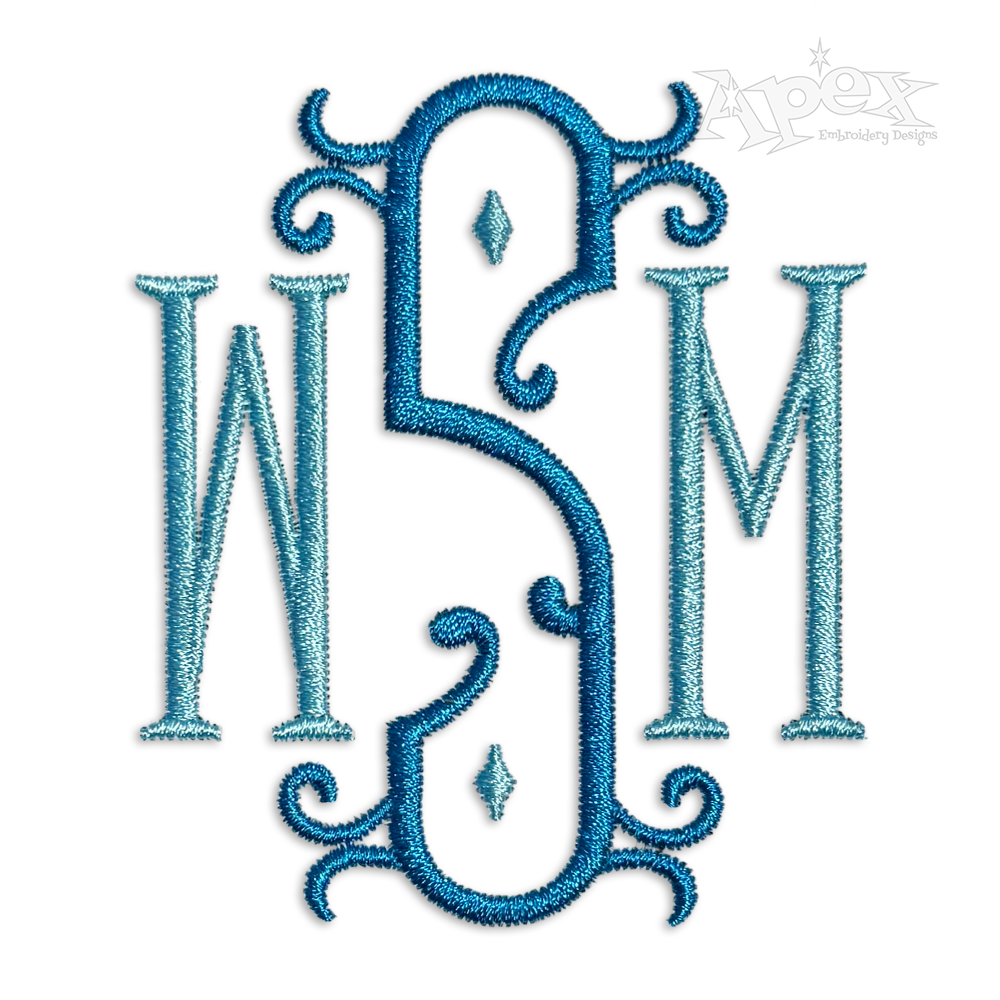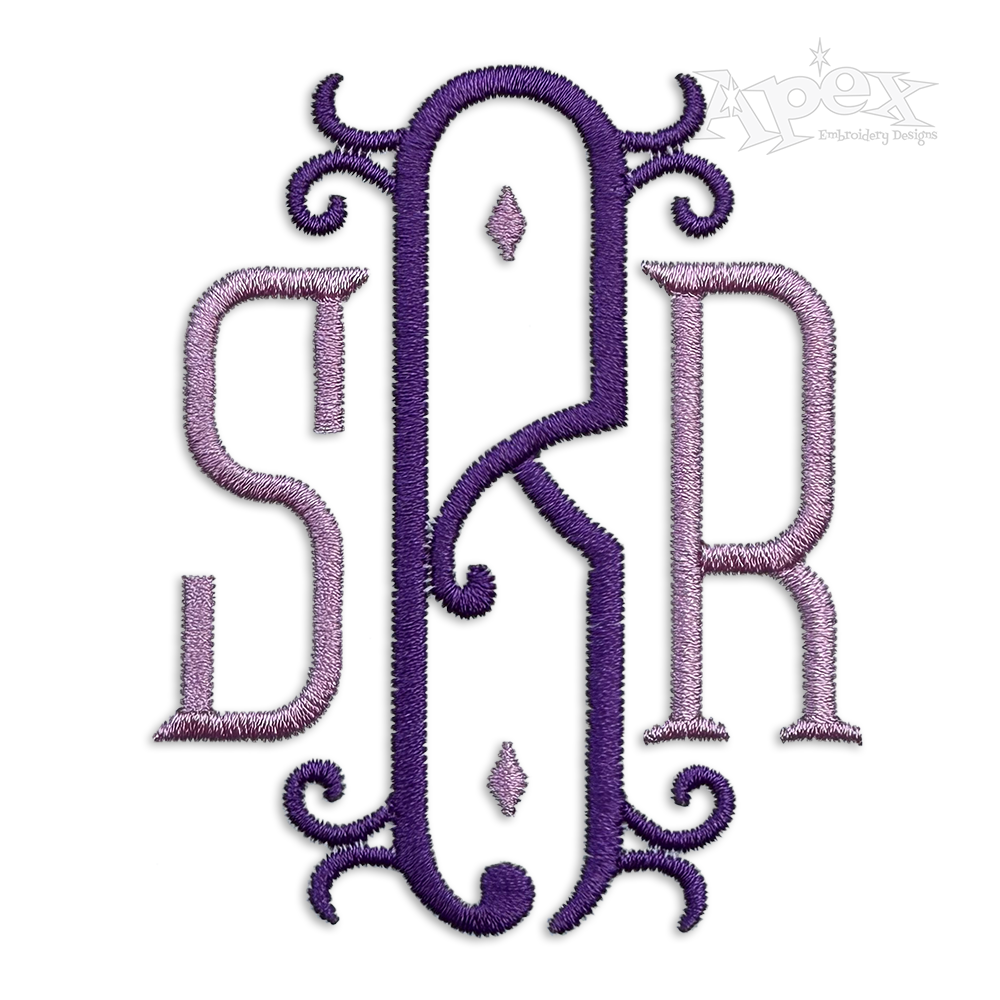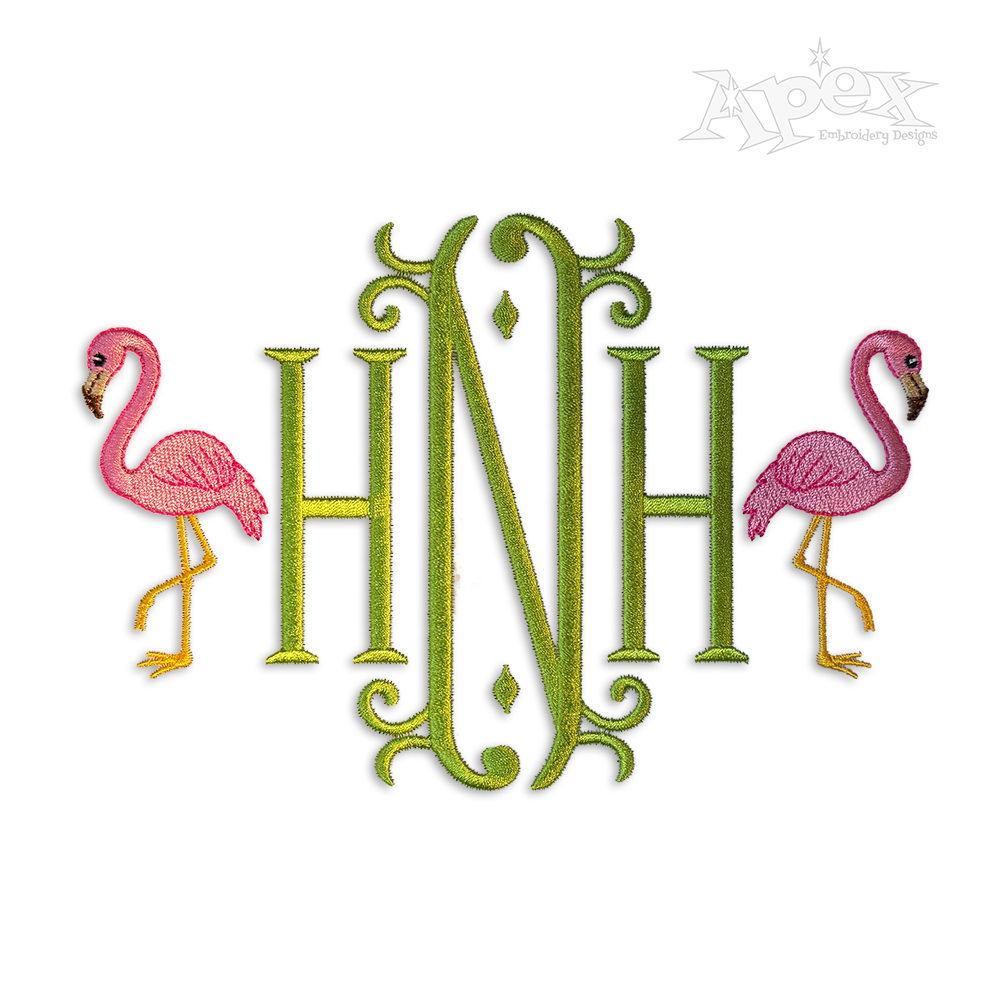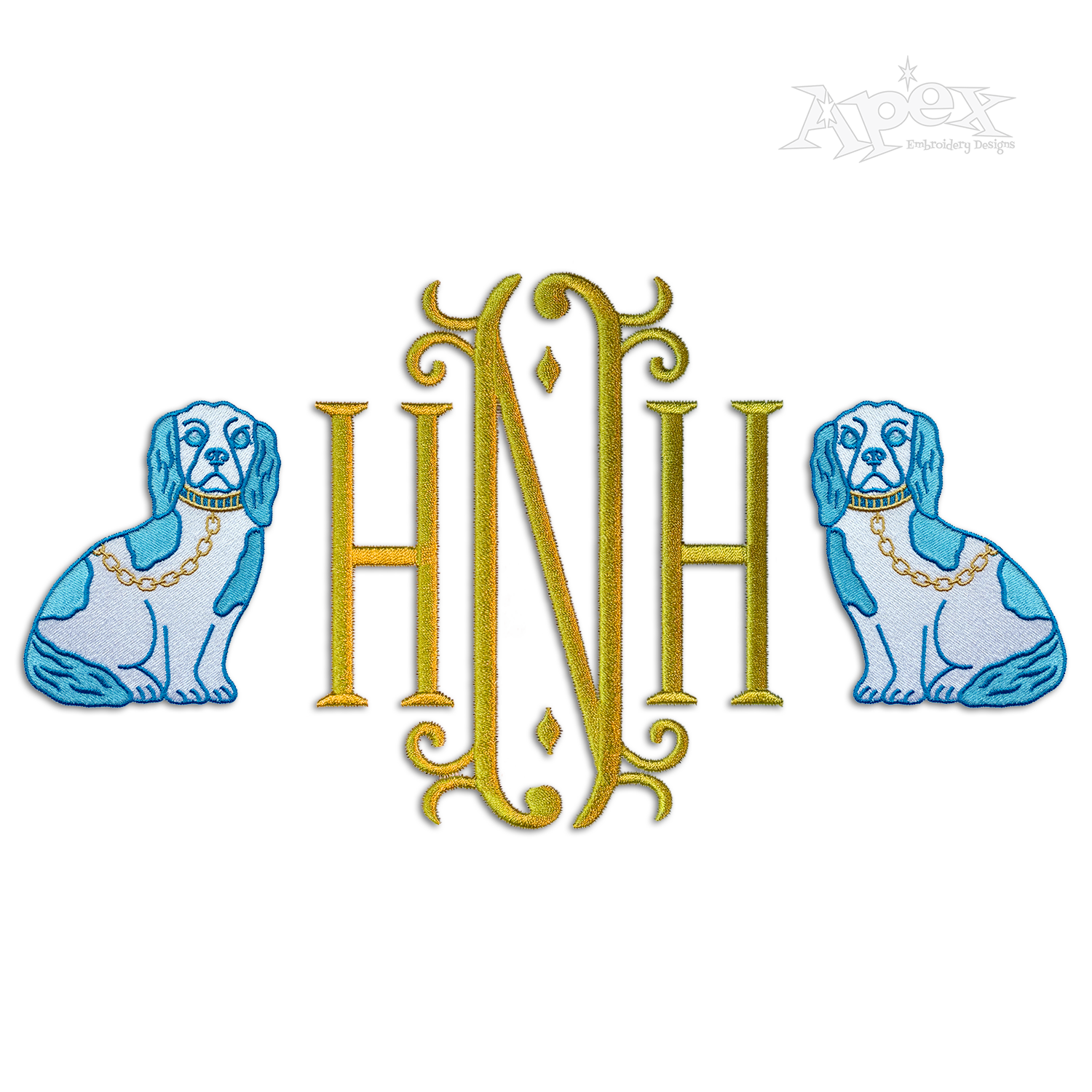
Vienna Embroidery Font
Add a timeless European touch to your embroidery projects with this Vienna Embroidery Font. Inspired by fancy Austrian, Old World, and classic monogram lettering styles, this machine embroidery font is ideal for creating elegant initials, personalized gifts, heirloom projects, and decorative sewing items.
- This is a one-color embroidery font, not a two-color font.
- Great for fancy monograms, initials, alphabet lettering, and personalized embroidery.